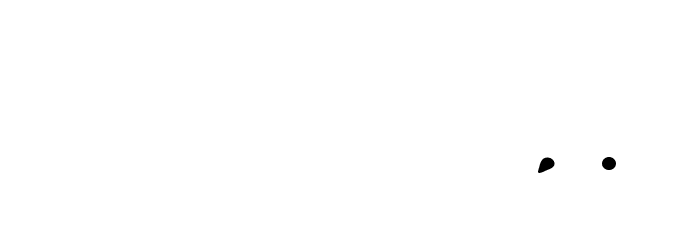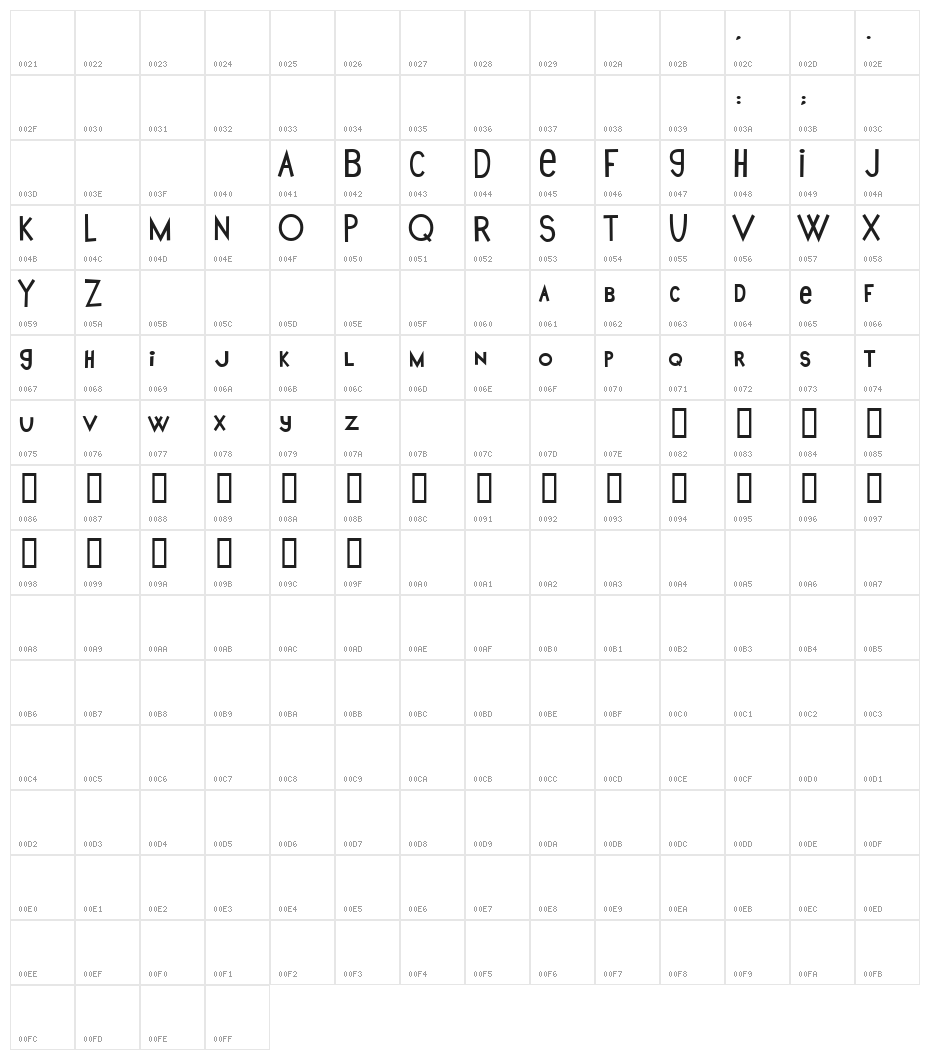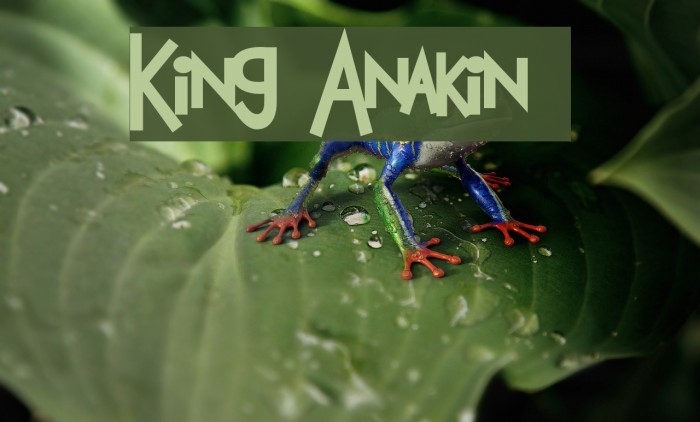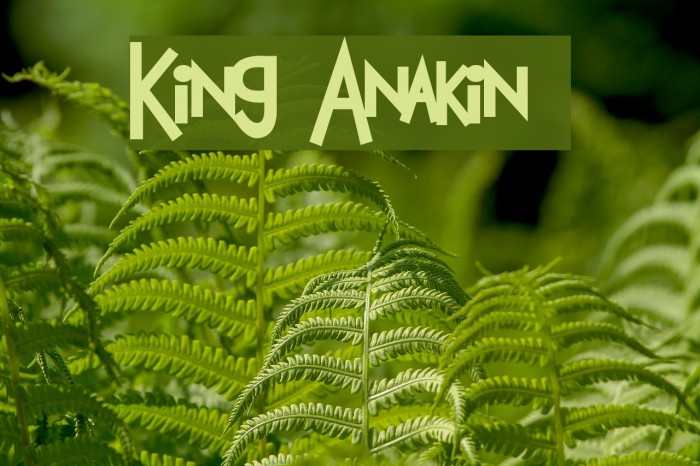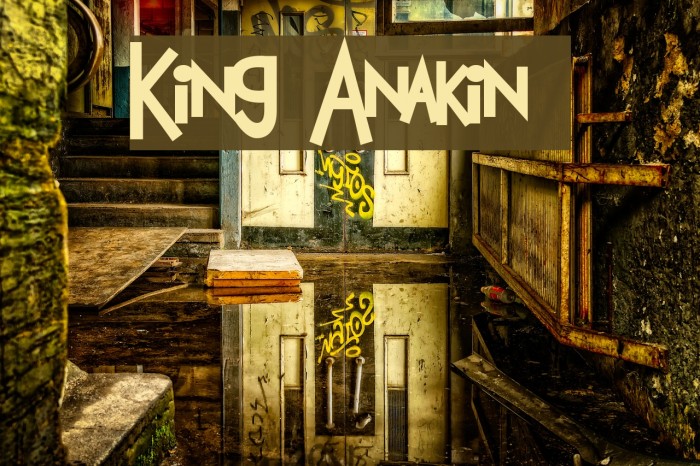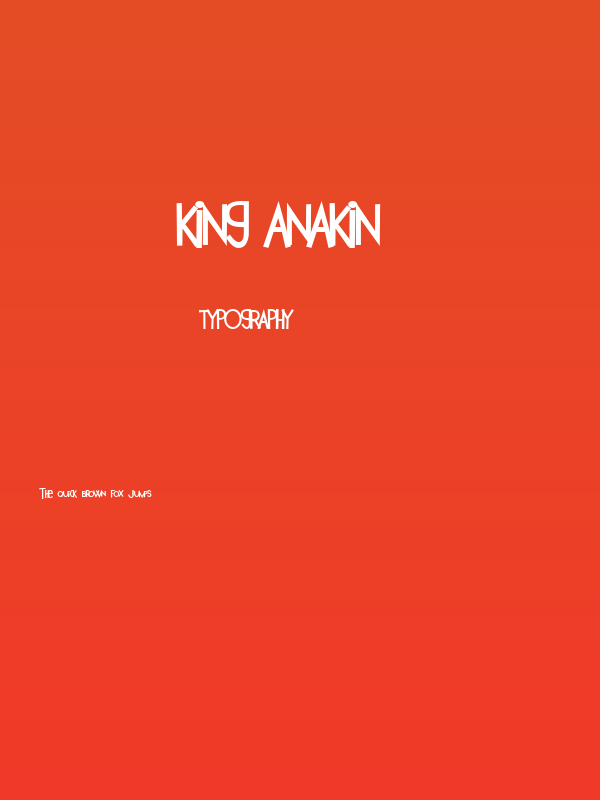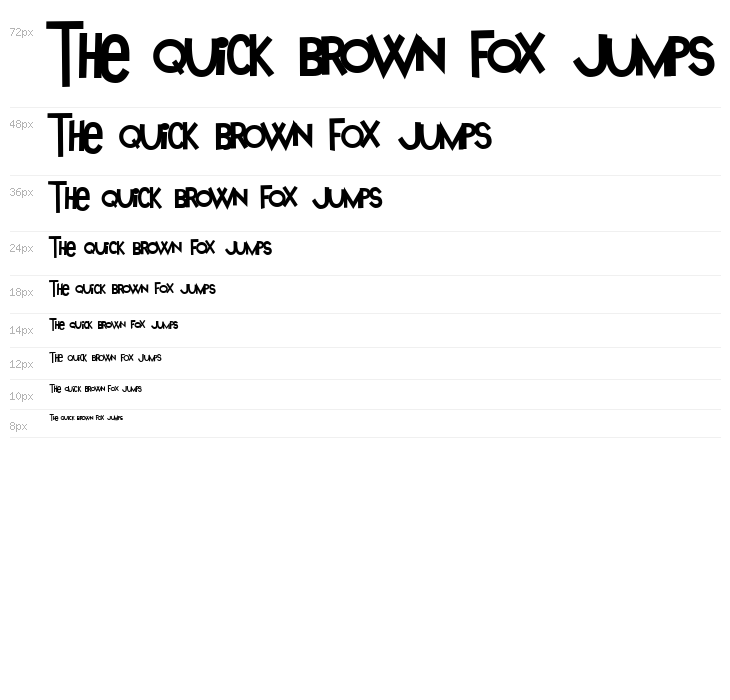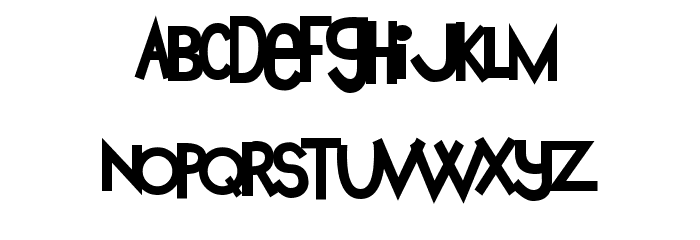
King Anakin 2 Font
King Anakin 2 Description
This font features a bold and geometric design with sharp angles and clean lines, creating a modern and striking appearance. The uppercase letters are particularly prominent, with a unique interplay of thick and thin strokes that add a dynamic feel. The lowercase letters maintain the same geometric style, ensuring consistency throughout the typeface. The numbers and special characters are designed to complement the letters, maintaining the bold and angular aesthetic. This font's distinct style makes it suitable for attention-grabbing headlines and logos, where a contemporary and assertive look is desired.